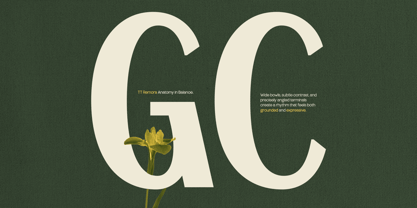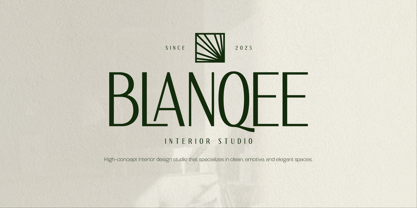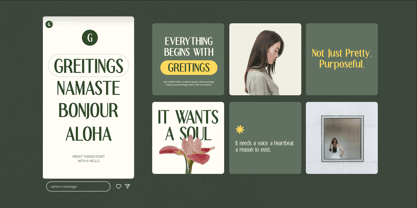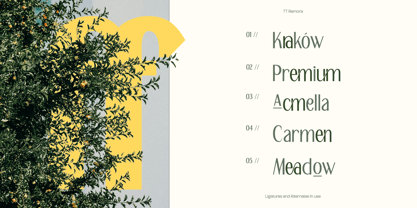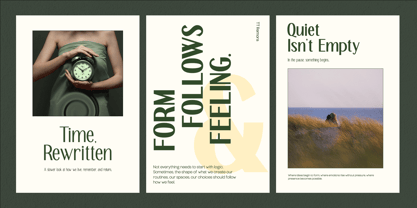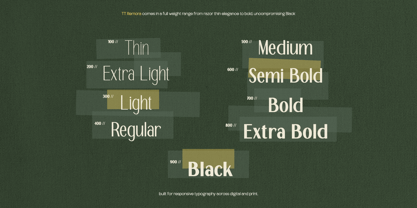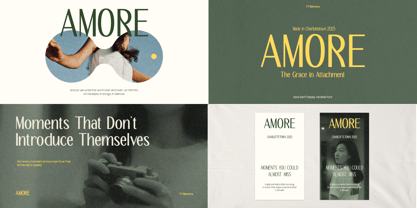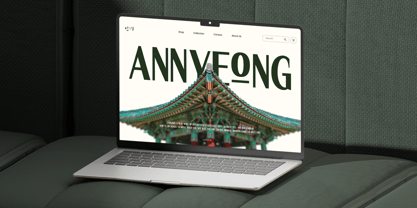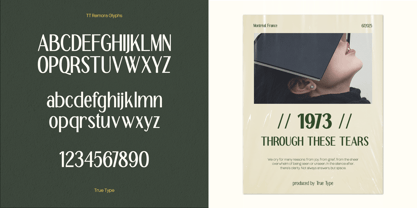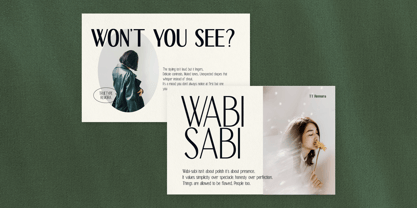
TRT Merauke
by True Type Lab
The TRT Merauke Font Family was designed by Yusilo Oktaprima Ardani and published by True Type Lab. TRT Merauke contains 8 styles and family package options.
TRT Merauke is a contemporary sans serif typeface family that blends character and clarity across eight carefully crafted styles — from delicate Thin to assertive Extra Bold. Designed with a TT Remora sensibility, TRT Merauke balances clean geometry with expressive letterforms, making it highly versatile for a wide range of applications. Its tall x-height, elegant curves, and precise spacing ensure excellent readability at both small and large sizes. Whether you're designing editorial spreads, crafting brand identities, or creating engaging digital content, TRT Merauke brings a fresh and refined voice to your typography. This typeface is confident without being rigid, stylish yet functional — offering a typographic solution that feels both professional and personable. At True Type, we craft fonts with clarity, warmth, and purpose — built to let your words stand out and resonate. Have questions or need help? Reach out anytime. Ready to explore? Browse our font collection and find the style that speaks your voice.